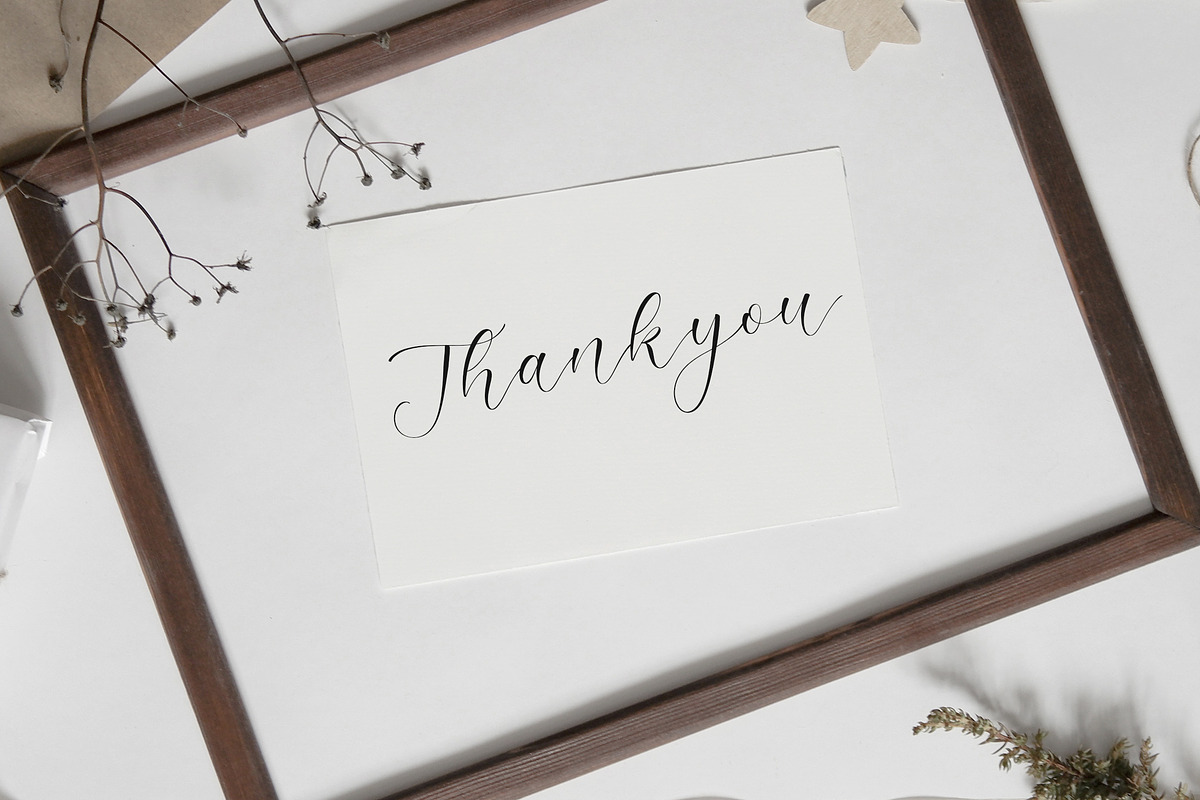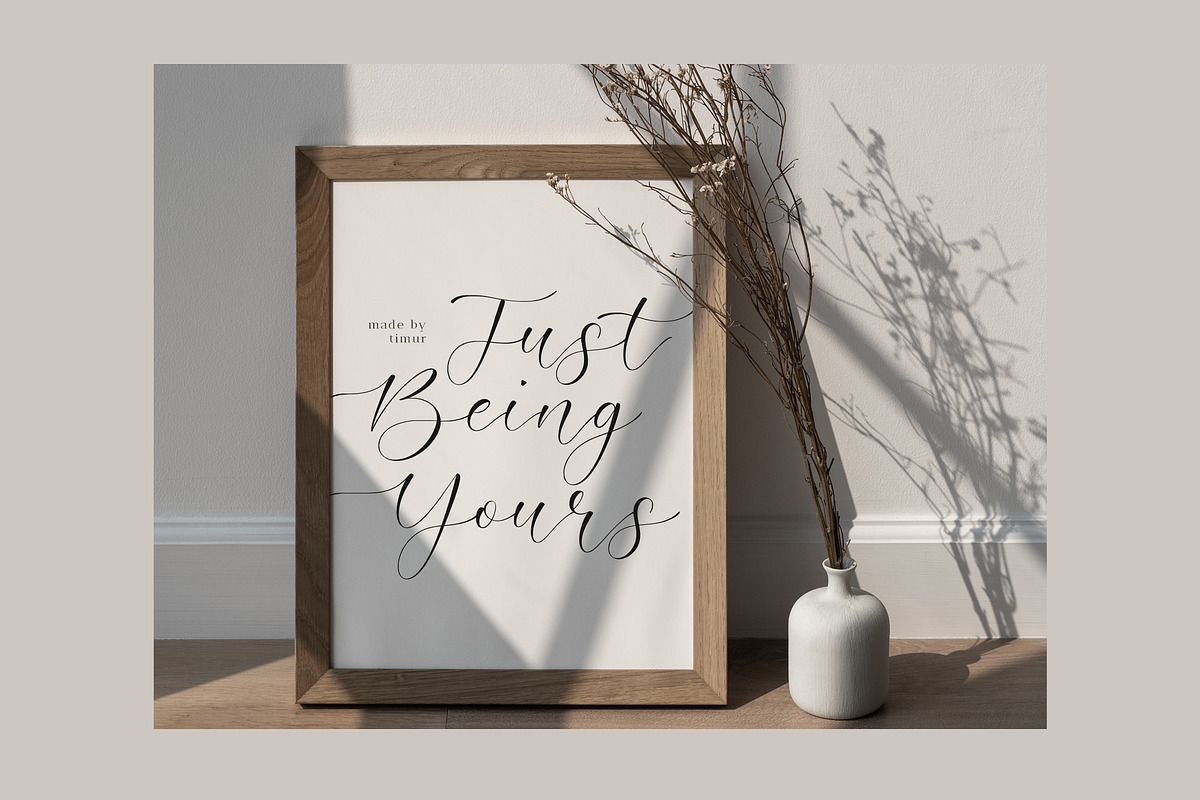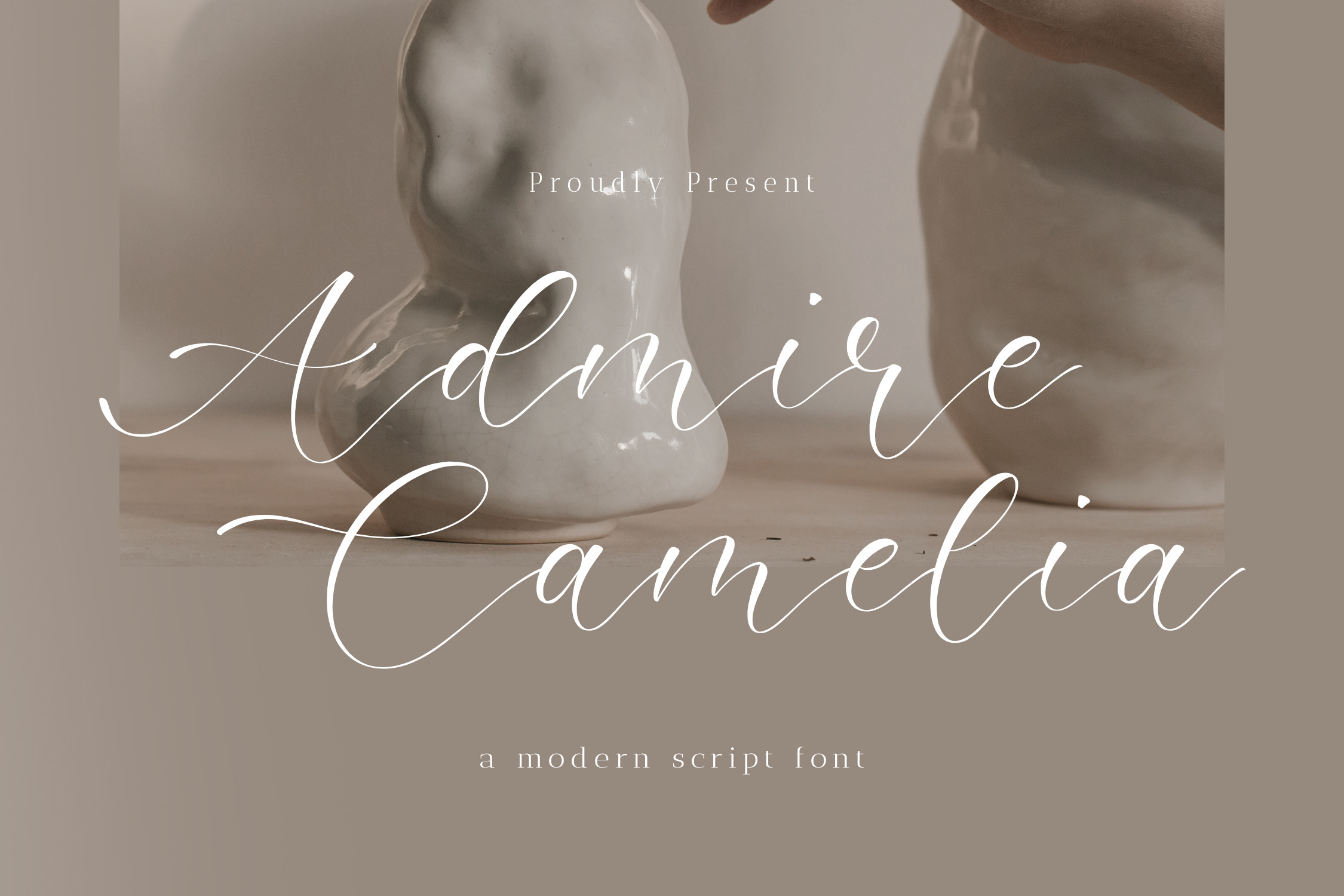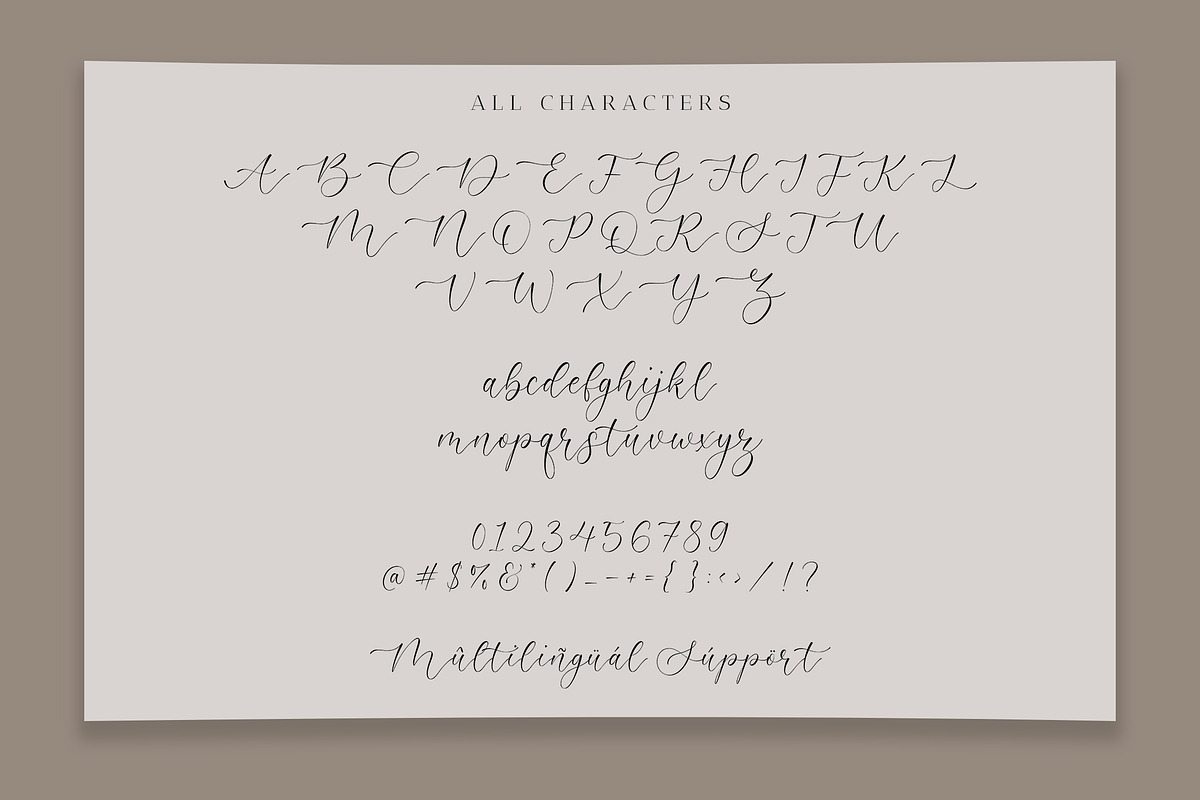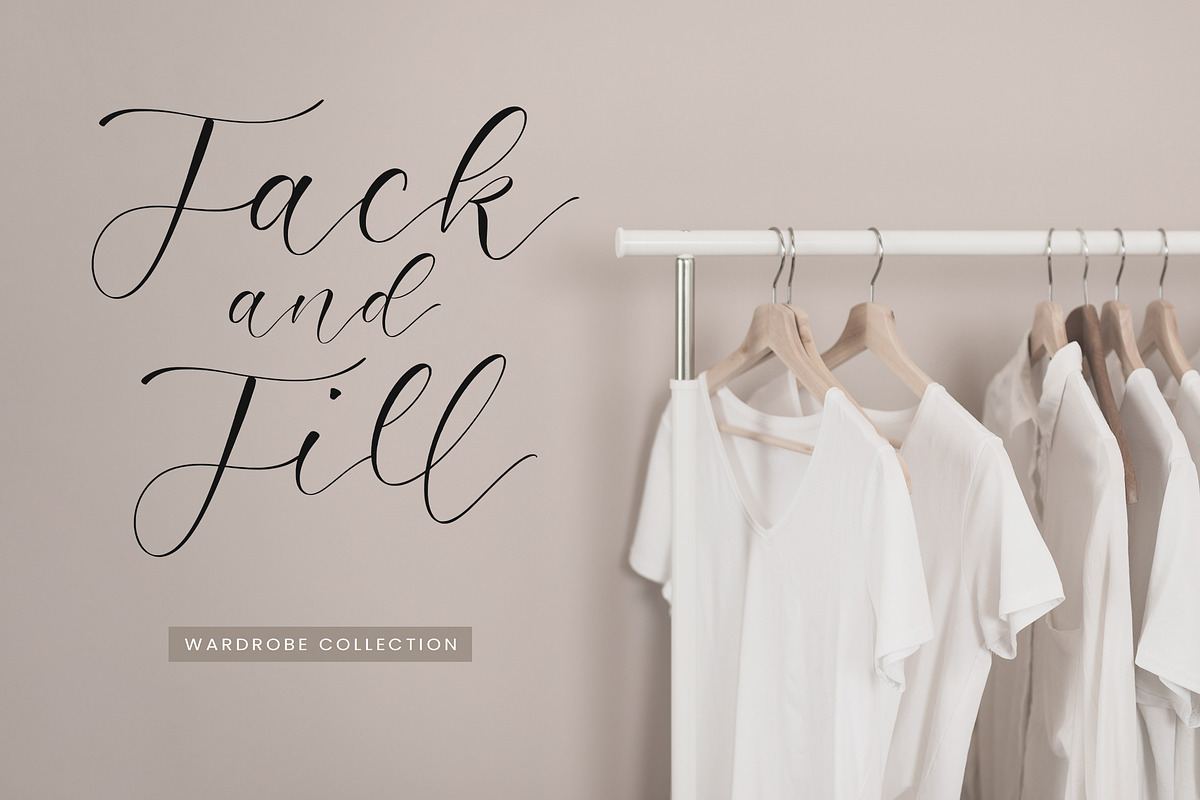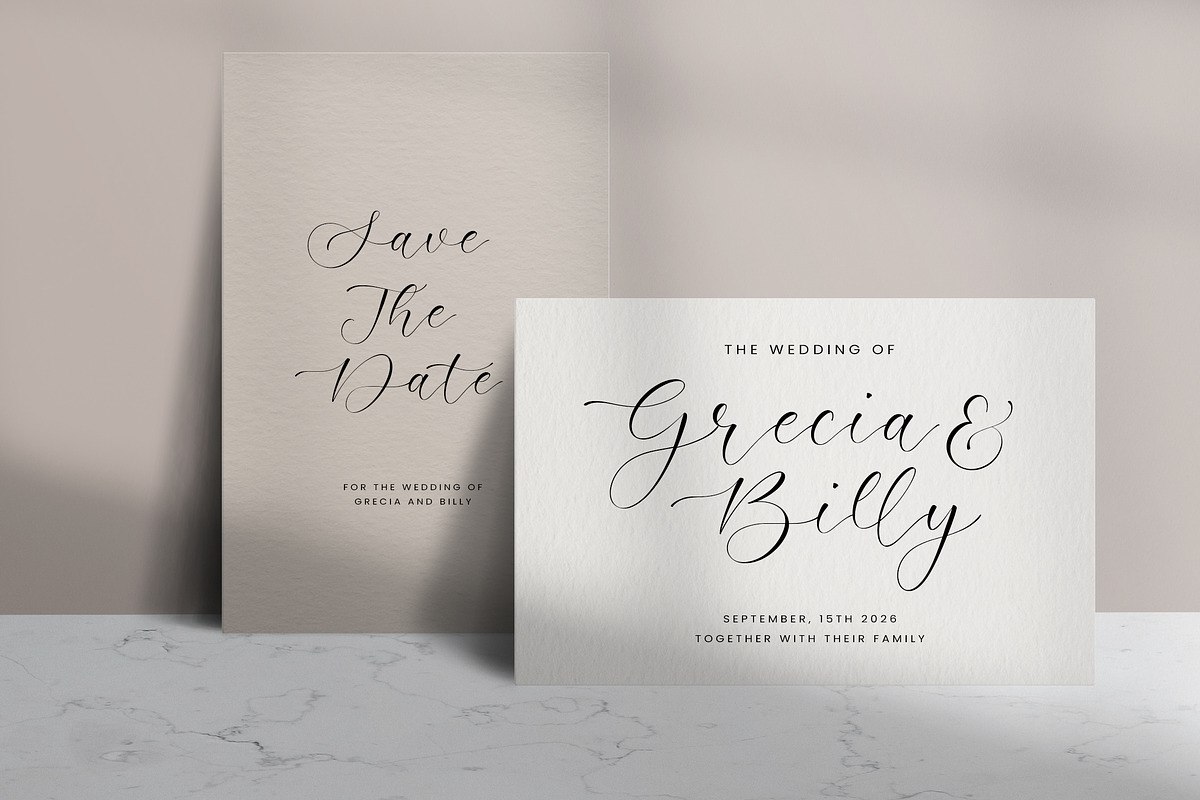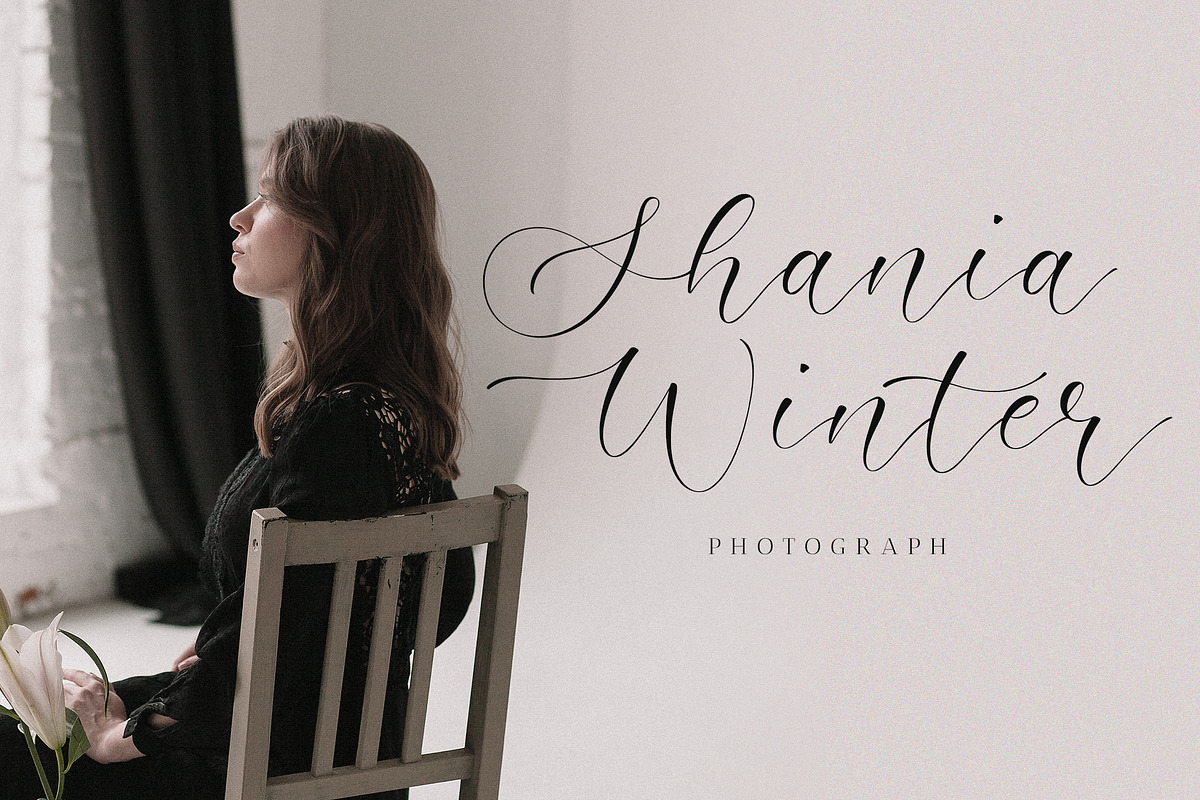
Admire Camelia - Modern Script Font
Proudly Present Admire Camelia
Admire Camelia is a Modern script font that is modern and fresh, and will bring a warm and inviting feel to your business. Take advantage of the fonts and experience the magic for yourself. Admire Camelia font is perfect for product packaging, branding project, megazine, social media, wedding, or just used to express words above the background.
Admire Camelia font also multilingual support.
Admire Camelia font Features premium : -Full Set of standard alphabet and punctuation